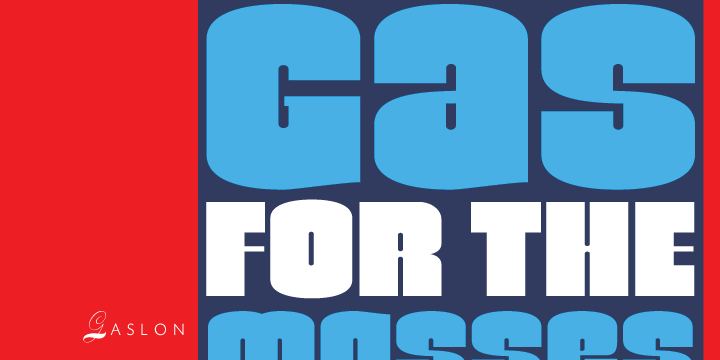
Gaslon is a display sans font published by Canada Type.
Gaslon is a slight reinterpretation and major expansion of a 1973 film type called Corvina Black, originally designed for VGC by A. Bihari. While the original typeface was popular in its own right, there were some things in it that were too quirky to work in the display applications it was intended for. Some of the letter combinations just didn’t work to their visual optimum. For example the a and o were too similar, ditto the C and G, the E, F and J were too overwhelming to be set properly within certain display uses.
Gaslon eliminates these problems by the inclusion of plenty of alternates for the vast majority of the original letters. In fact, the original a is itself now an alternate to a gorgeous new one. The Gaslon Alt font includes tremendous possibilities for both unicase use, and proper use in conjunction with the main font. This is our true homage to a typeface that had great potential more than three decades ago, but was overlooked by digitizers because of a few quirks it had in film type contexts.
Full of curves and invitation, Gaslon ranks very high among the friendliest poster faces ever made. It is ideal for friendly store signs, children book covers, and plenty of other applications. In fact, if you’re planning on contributing to a few protests around your neighborhood or city, you would probably be better off using Gaslon to help your sign/placard carry words and slogans that are big but friendly. Nothing beats “DOWN WITH GAS PRICES” set in a nice imaginative mix of the many Gaslon letters.